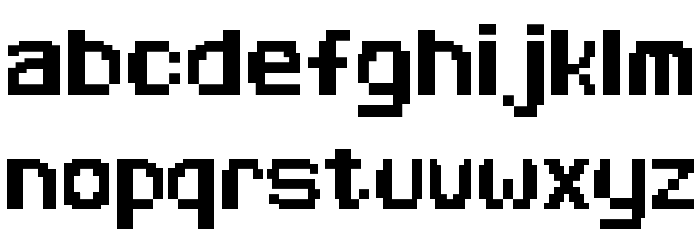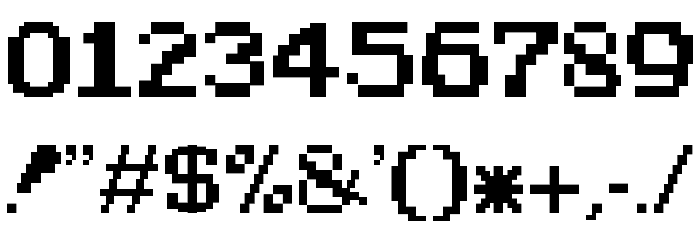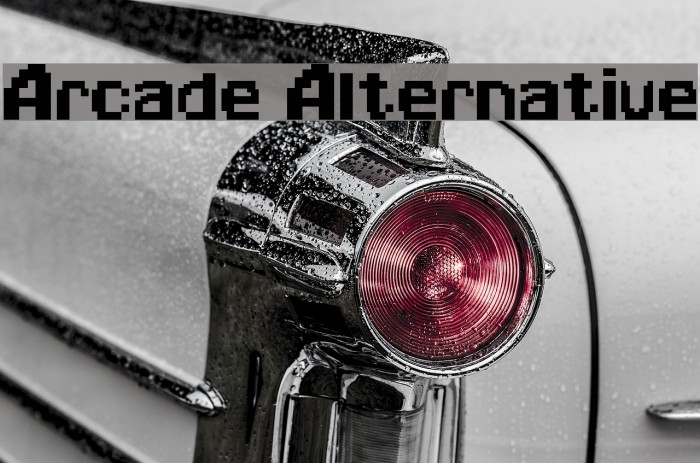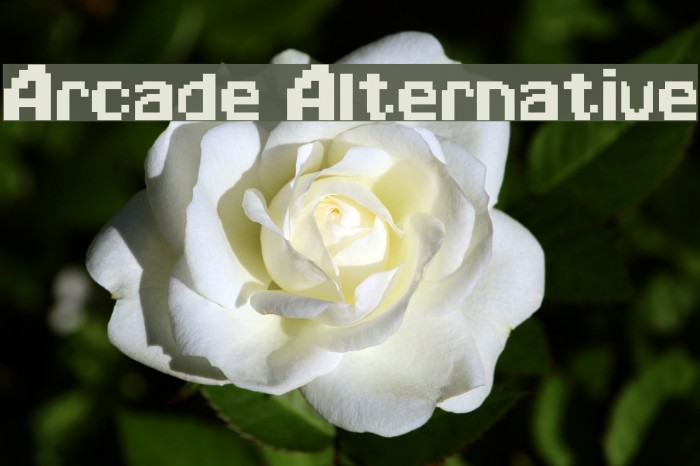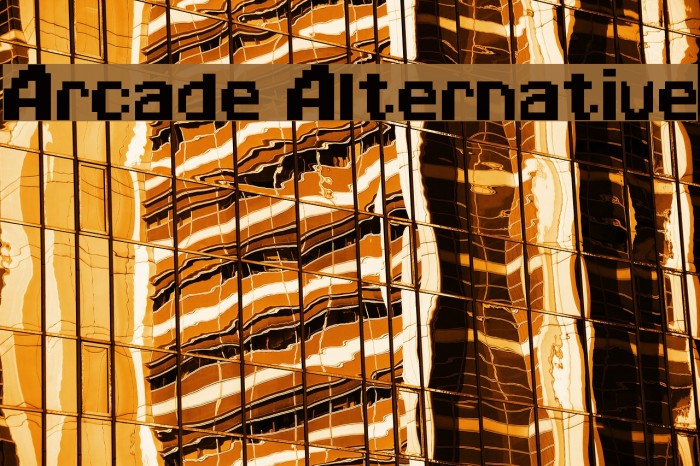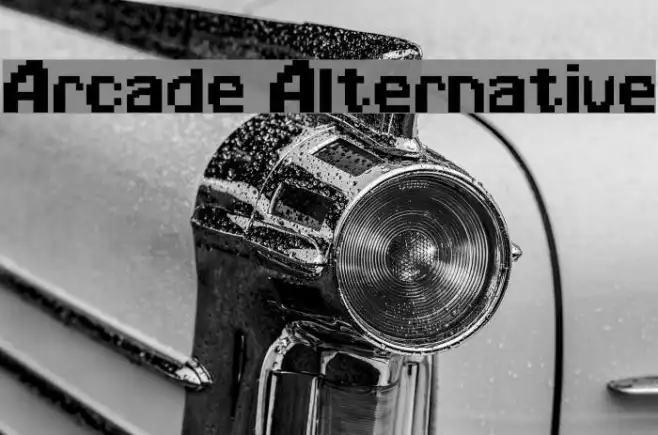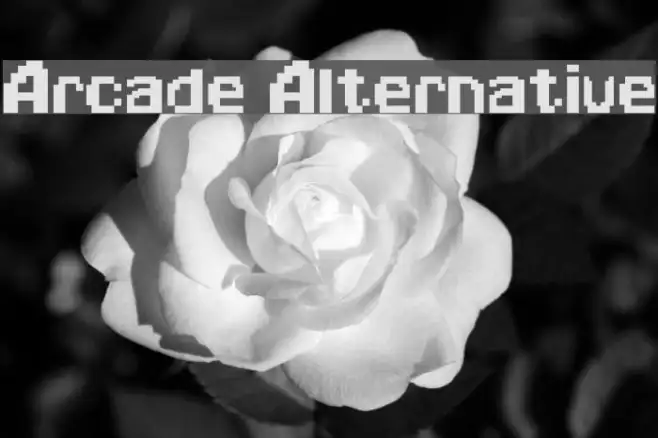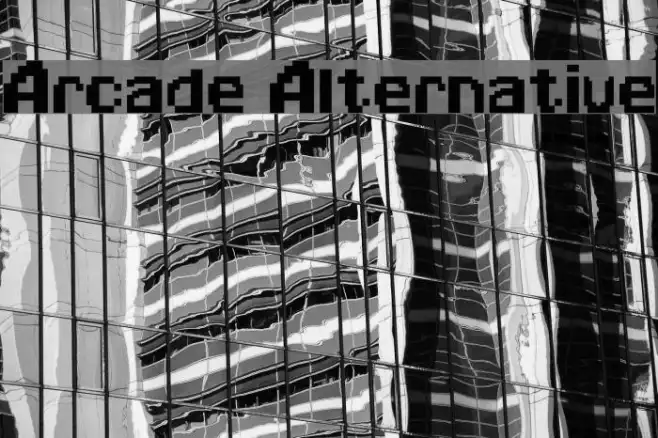
Arcade Alternative Font
This font features a bold, pixelated style reminiscent of classic arcade games from the 1980s. Each character is constructed with a blocky, grid-like appearance, giving it a distinctly retro and digital feel. The uppercase and lowercase letters maintain a uniform height, enhancing the font's geometric consistency. Numbers and special characters follow the same pixelated design, ensuring a cohesive look across all glyphs. The font's simplicity and nostalgia make it ideal for projects that aim to evoke a sense of vintage gaming or digital aesthetics.
A bold, pixelated font inspired by classic arcade games.
- Font: Arcade Alternative
- Proposed Projects: Ideal for retro-themed designs, video game graphics, digital art projects, and nostalgic branding.
- Overall Style: Vintage
- Use Case: Headlines, Logos, Digital Art